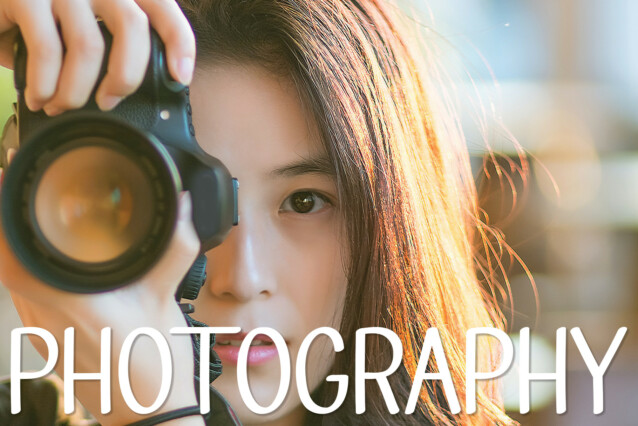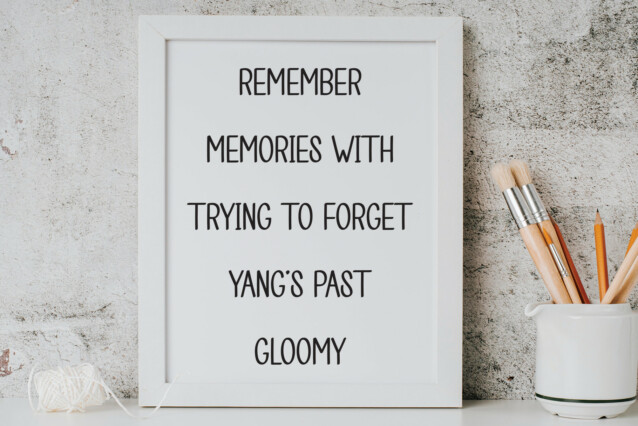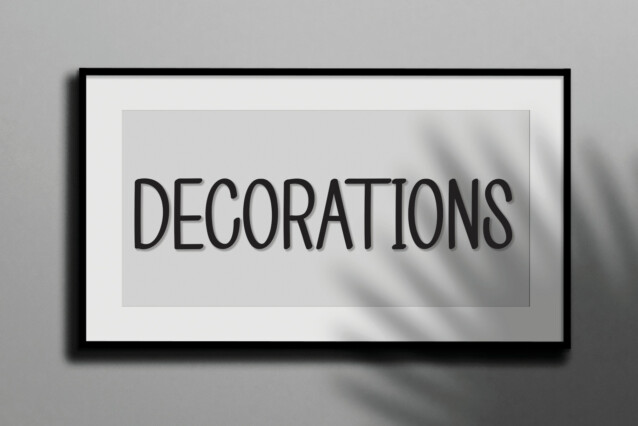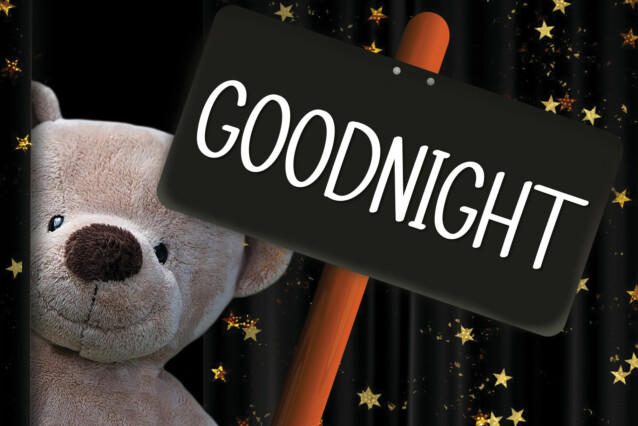
Room Handmade Display Font
Room Handmade Display Font is a neat and casual handwritten font. Incredibly versatile, this font will be suitable for a wide spectrum of applications. Add it to each of your creative ideas and notice how it makes them stand out!